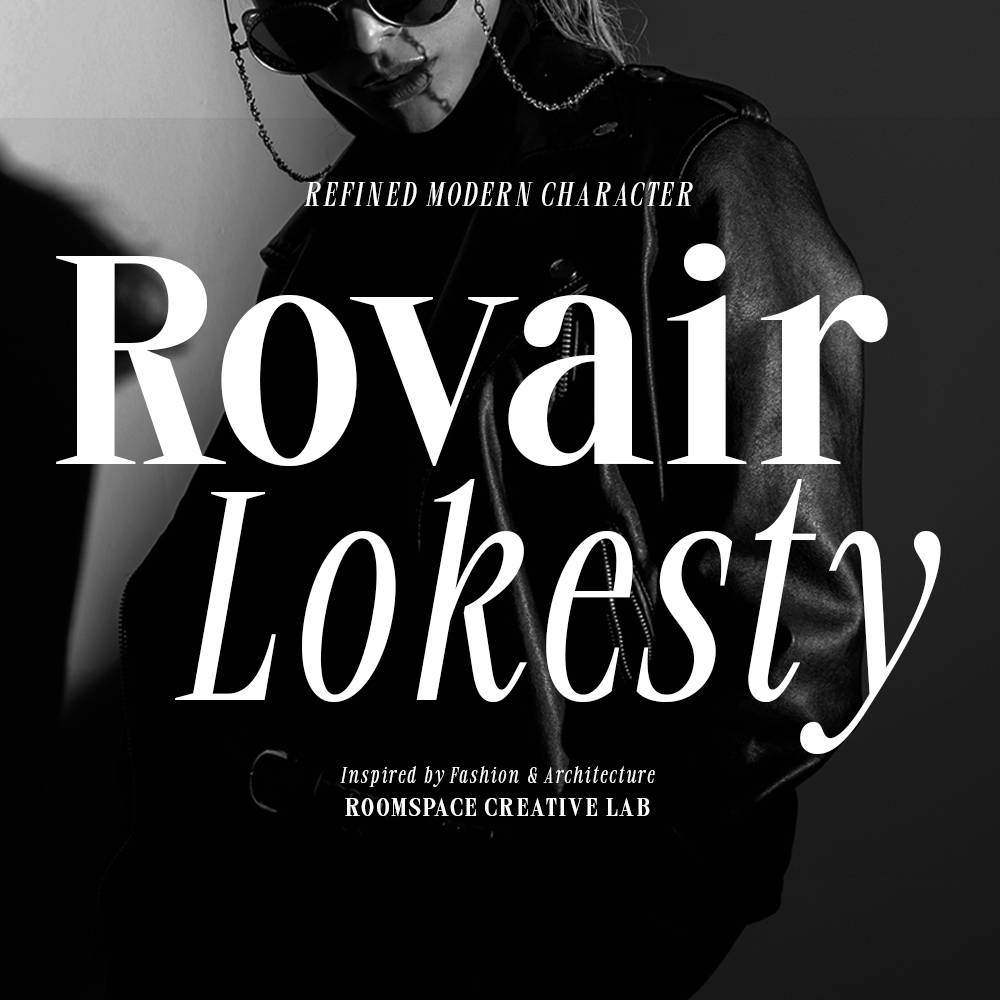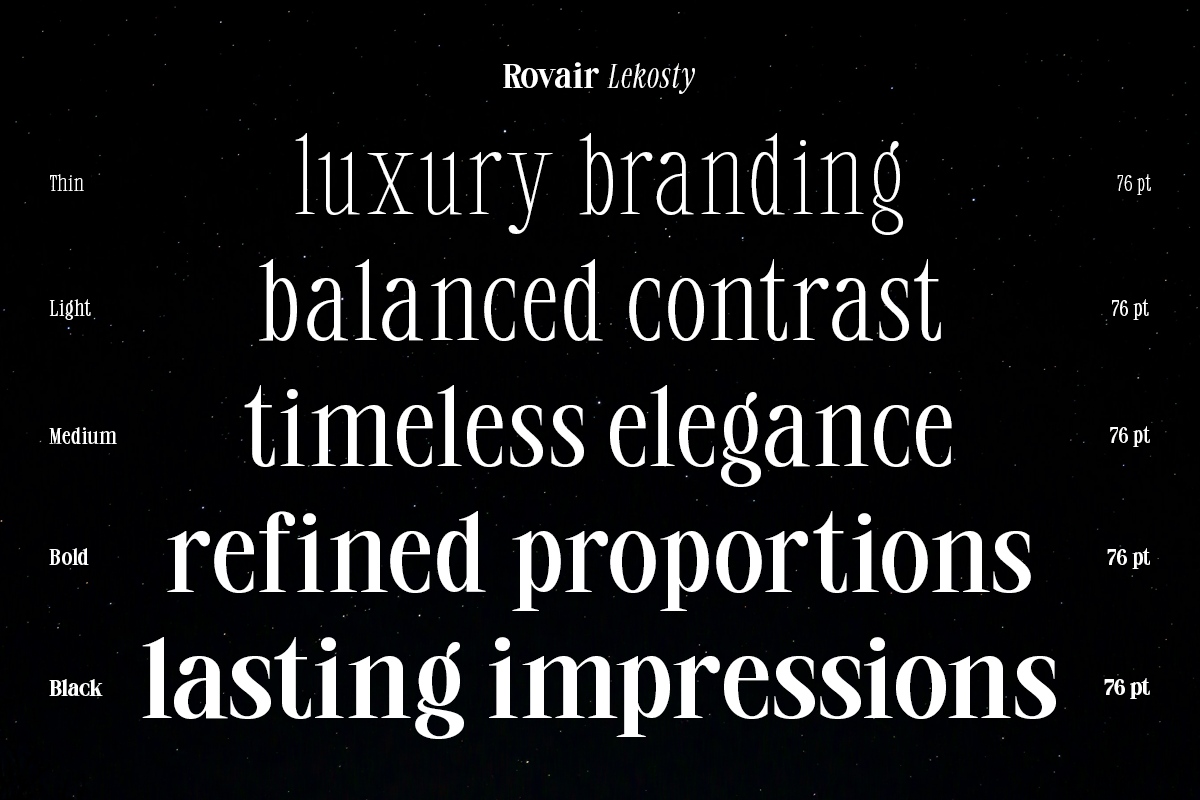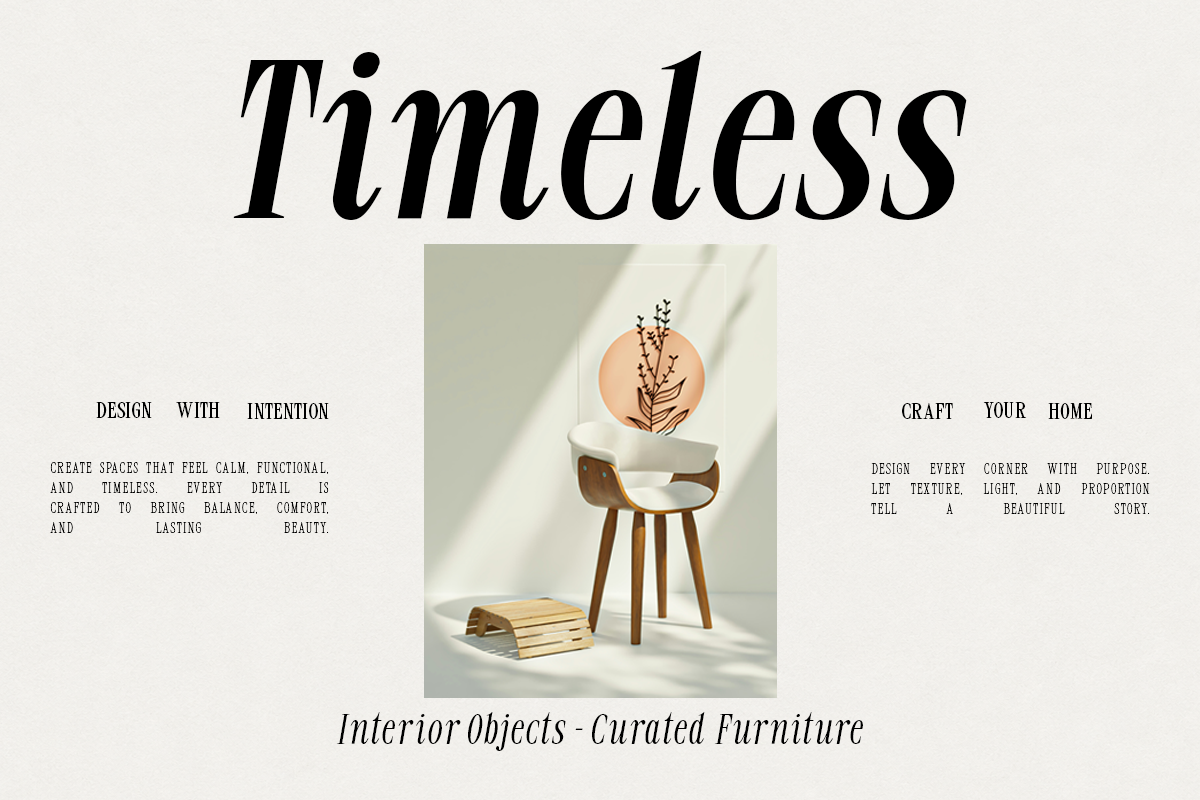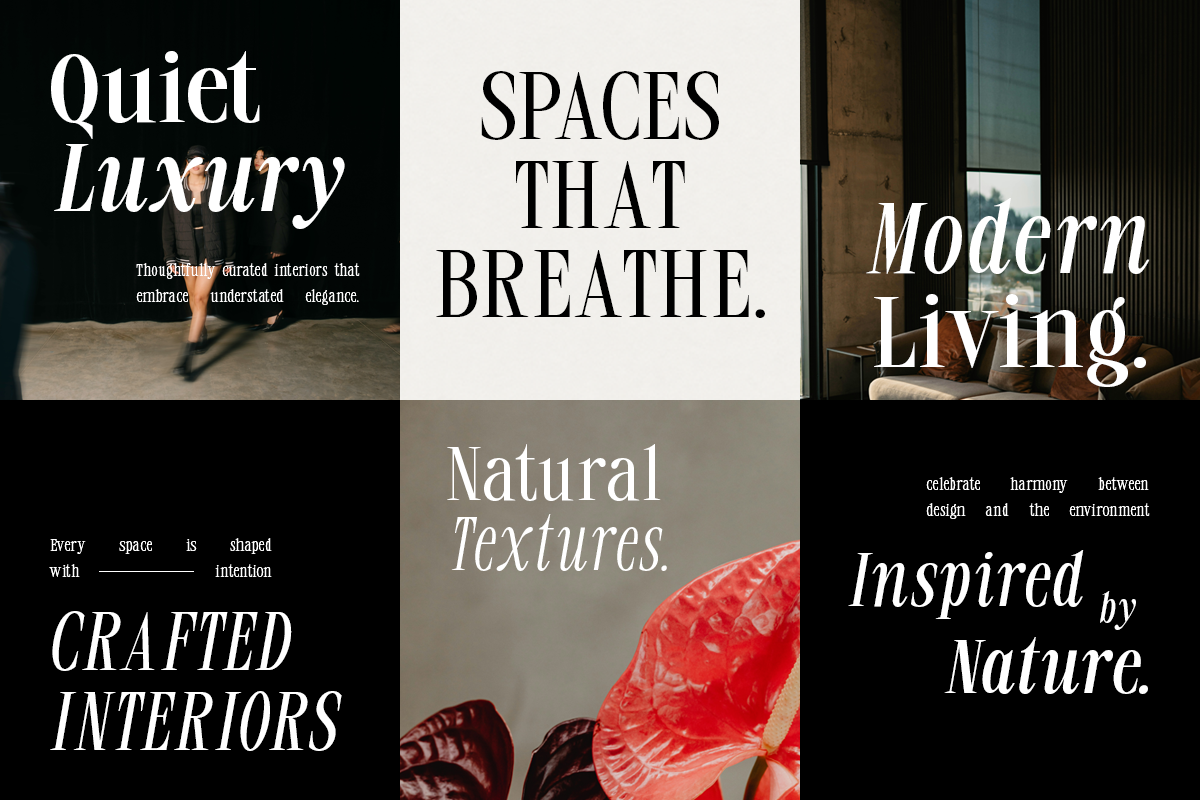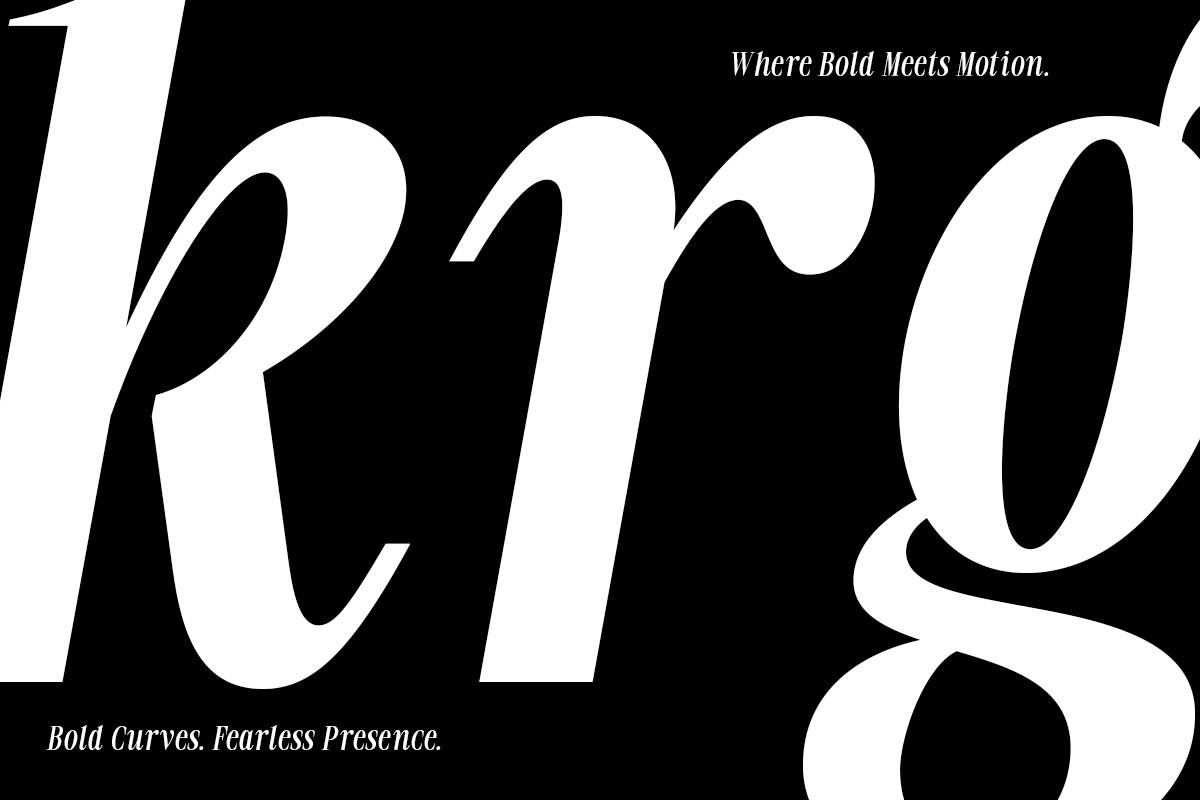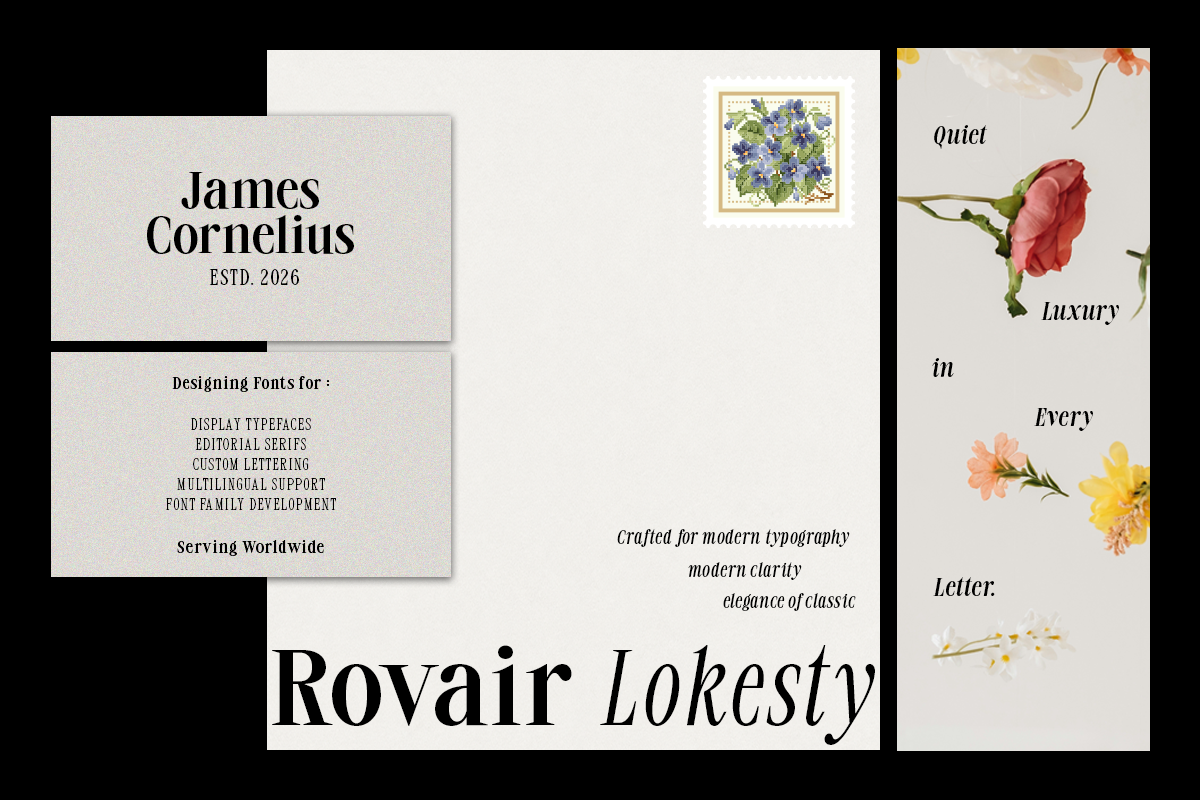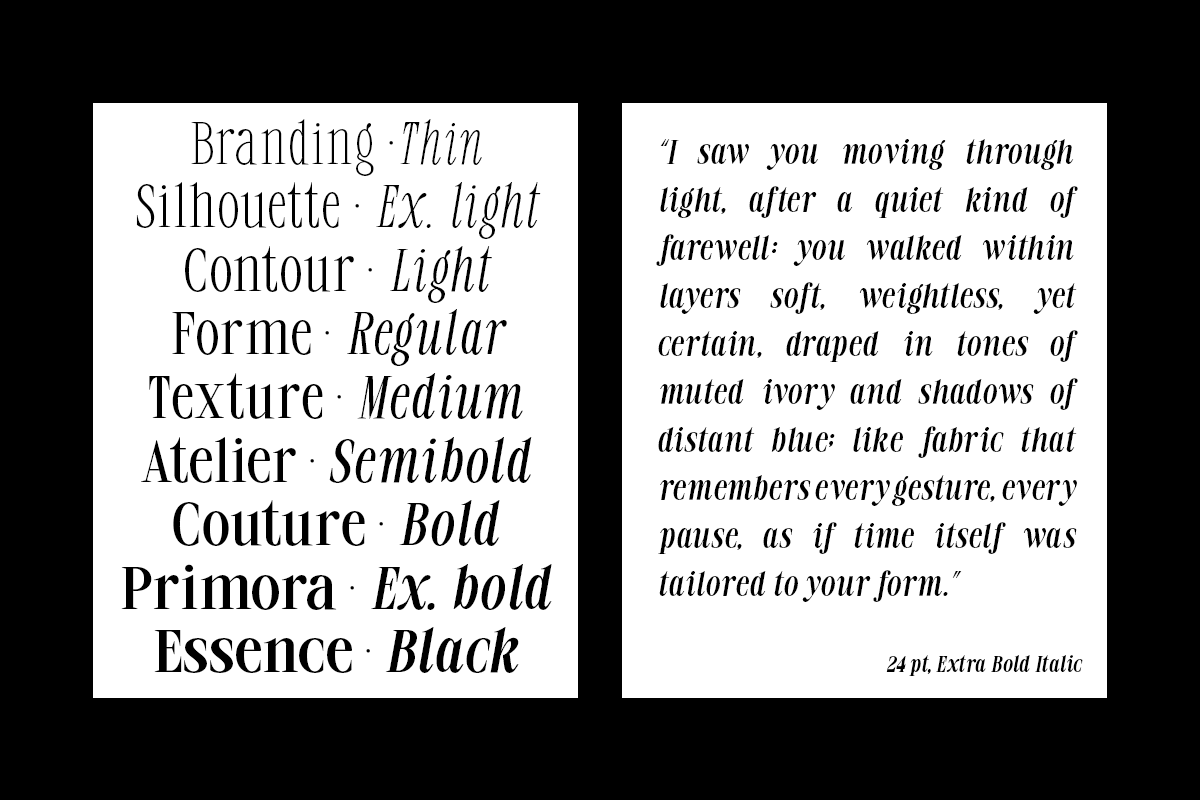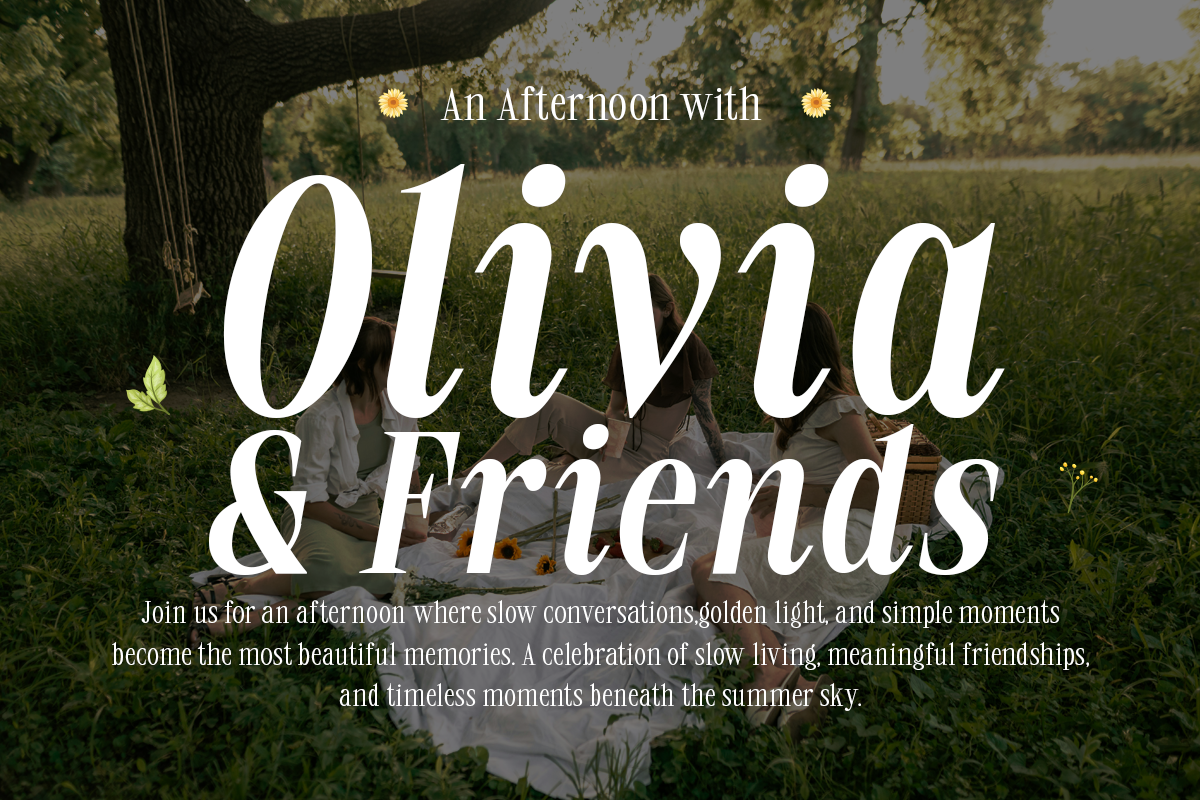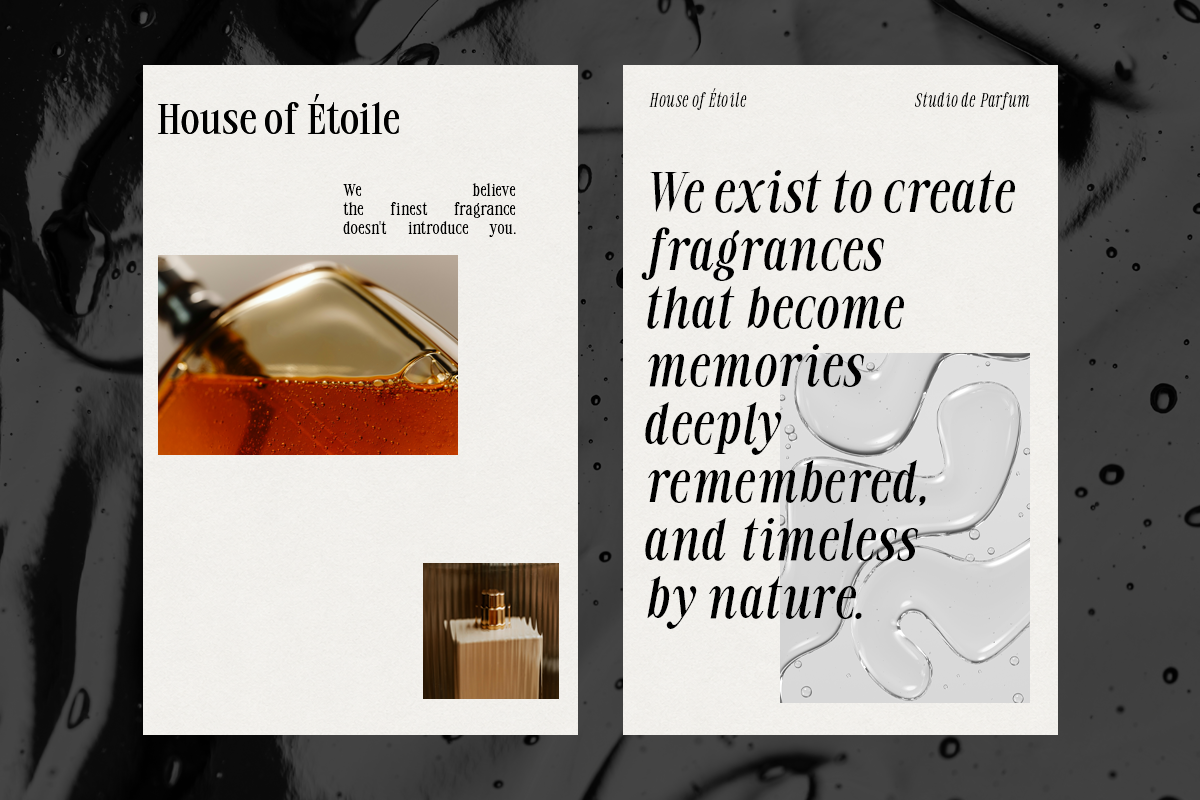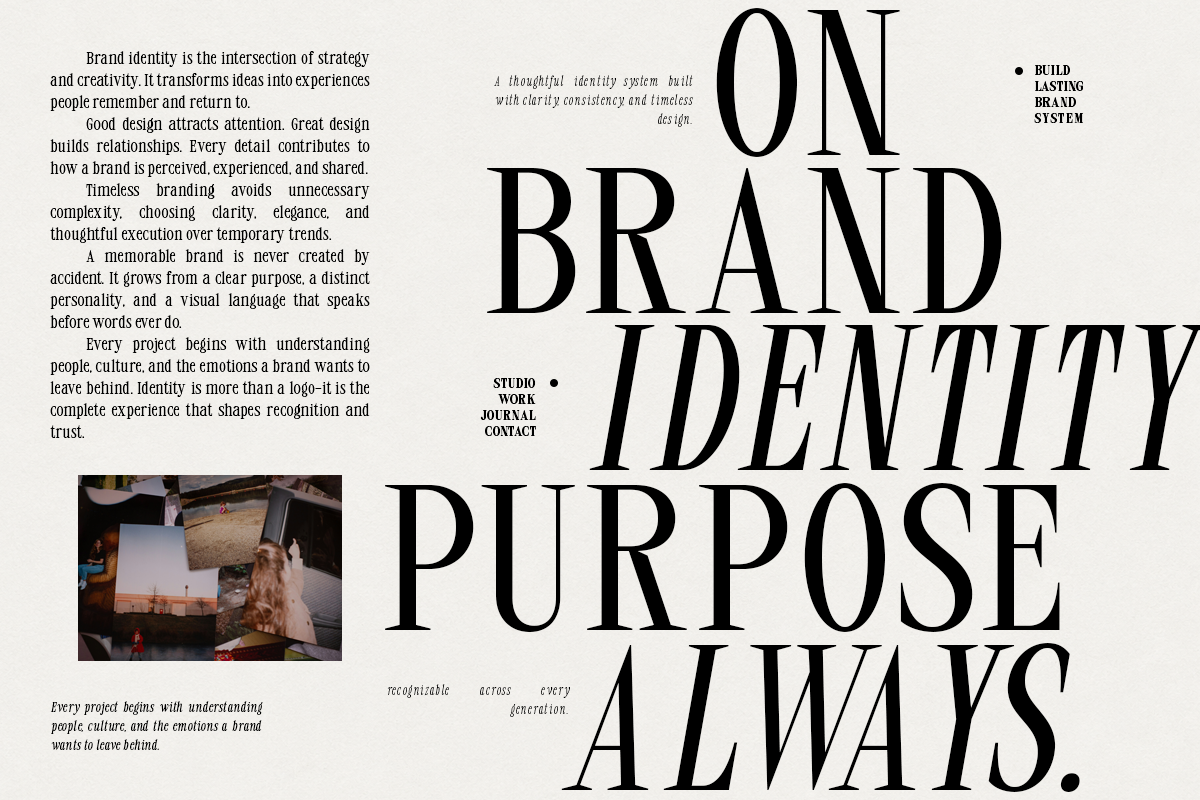
Rovair Lekosty - Modern Serif Font
Rovair Lekosty is a modern serif typeface that combines timeless elegance with refined contemporary details. Designed with graceful high-contrast strokes, soft curves, and carefully sculpted terminals, this typeface delivers a sophisticated visual voice suitable for luxury branding, editorial layouts, fashion campaigns, cosmetic packaging, hospitality identities, wedding stationery, and premium marketing materials.
Its balanced proportions create strong visual impact in large headlines while maintaining excellent readability in supporting typography. The italic style introduces expressive movement and contrast, making it ideal for sophisticated layouts that require both personality and elegance.
Whether you're creating a visual identity, magazine cover, logo, invitation, packaging design, website header, or social media campaign, Rovair Lekosty offers a versatile serif family that adapts beautifully across digital and print applications.
Rovair Lekosty is a modern serif typeface featuring high-contrast strokes, soft curves, and an italic style. It includes uppercase and lowercase characters, numerals and punctuation, standard ligatures, stylistic alternates, and multilingual support, available in OTF, TTF, WOFF, and WOFF2 formats.